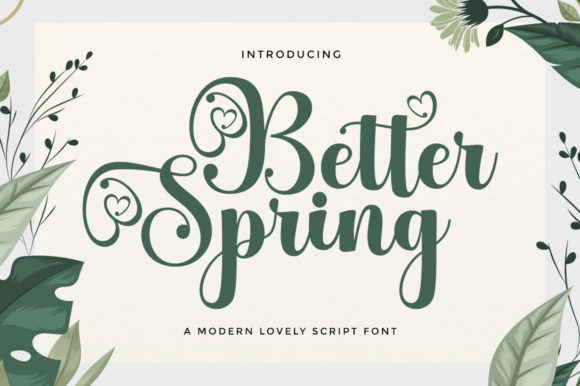
Introducing Better Spring Font, the ultimate script font that will take your design projects to new heights! Created by the talented team at LetterFreshStudio, this font is a perfect blend of elegance and subtlety, making it ideal for a wide range of applications.
With its well-balanced and carefully crafted design, Better Spring Font is guaranteed to captivate your audience. Whether you're working on baby shower invitations, nursery room decor, or any other baby-related project, this font is your go-to choice. Its versatility knows no bounds!
What sets Better Spring Font apart is its PUA encoding, allowing you to effortlessly access all the stunning glyphs and swashes it has to offer. Say goodbye to limitations and hello to endless creative possibilities. Let your imagination run wild as you add that extra touch of sophistication to your designs.
Imagine the joy and excitement your clients will feel when they receive invitations adorned with this exquisite font. Better Spring Font will instantly elevate your creations, leaving a lasting impression on anyone who lays eyes on them.
But it doesn't stop there. Better Spring Font goes beyond just baby-themed projects. Its timeless appeal and graceful strokes make it suitable for various design purposes. From wedding stationery to branding materials, this font will effortlessly bring elegance and class to any project you undertake.
Don't settle for ordinary when you can have extraordinary. Better Spring Font is here to make your designs shine like never before. Let its captivating charm and emotional impact draw in your audience and make a statement.
Embrace the power of Better Spring Font today and unlock a world of endless creative possibilities. Elevate your designs, captivate your audience, and leave a lasting impression. It's time to make a statement with the best font for baby script – Better Spring Font!